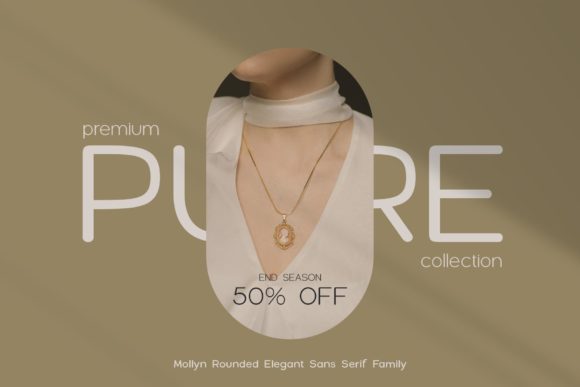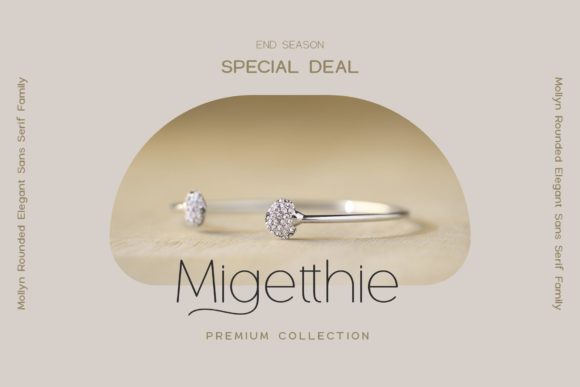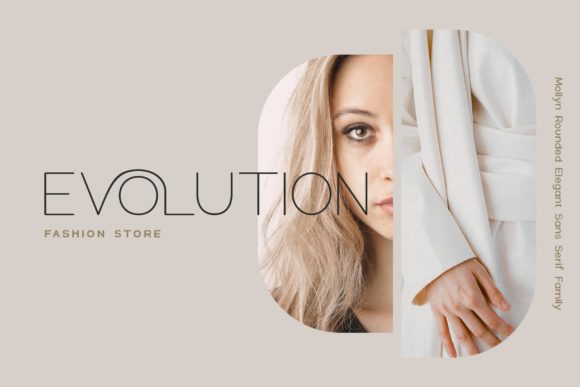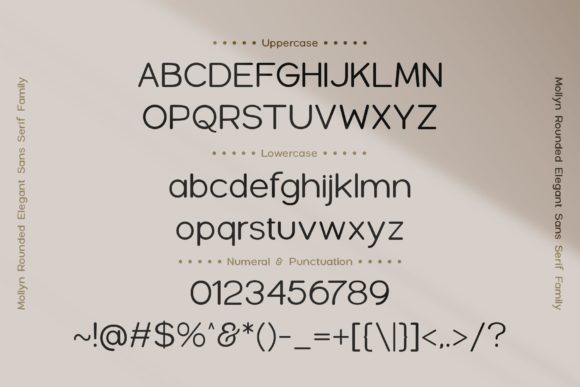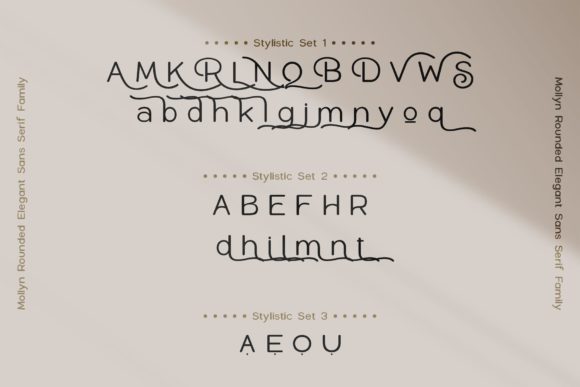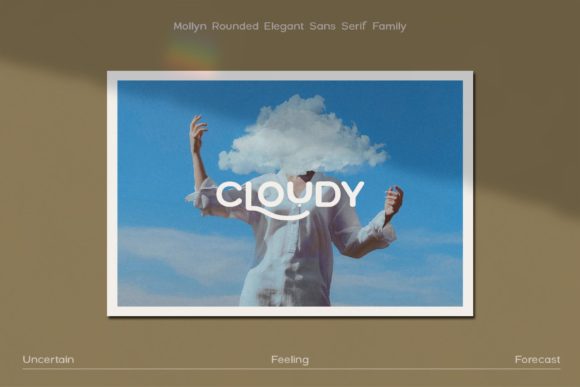
Introduction to Mollyn Font
Mollyn is an elegant sans serif font.
Key Features of Mollyn Font
Why Choose Mollyn Font?
Mollyn Font offers exceptional quality and versatility, making it a valuable addition to your design toolkit. Whether you’re creating for personal projects or commercial use, Mollyn Font delivers professional results.